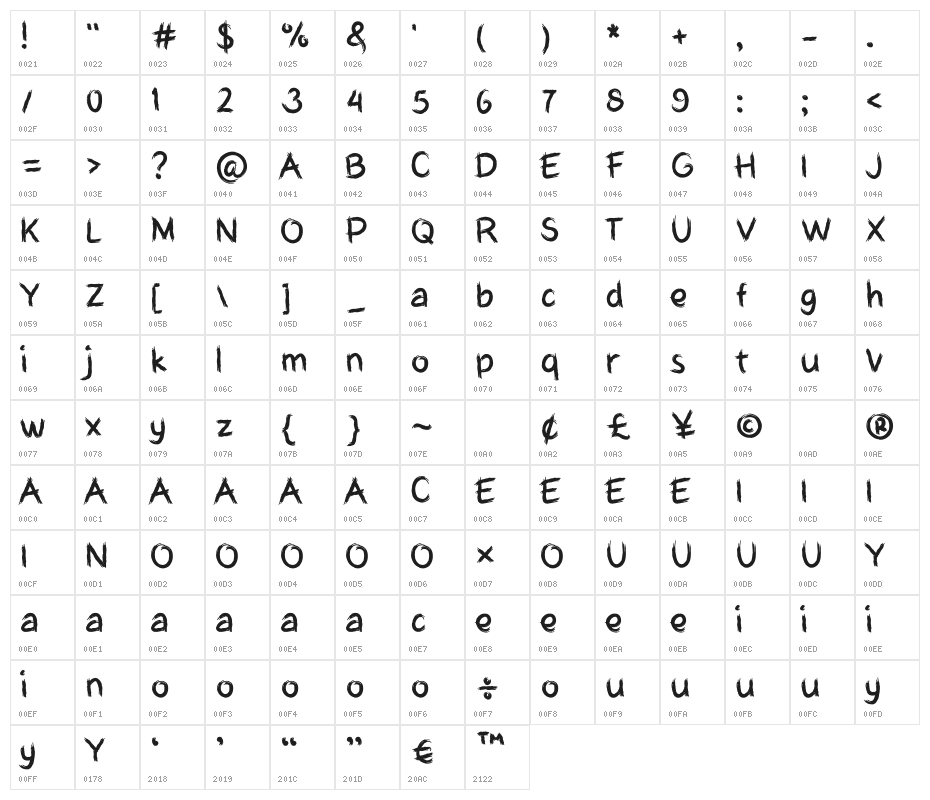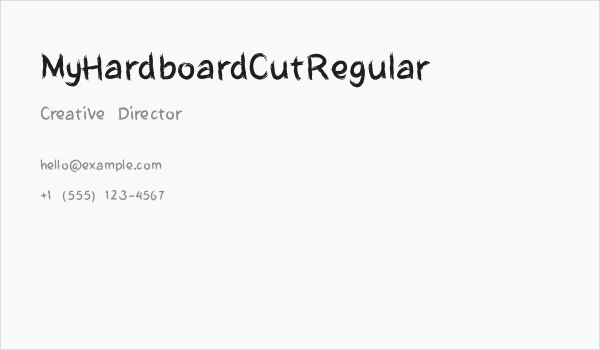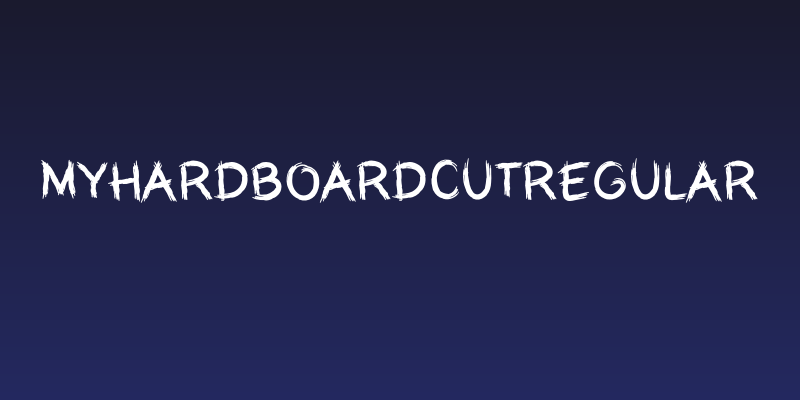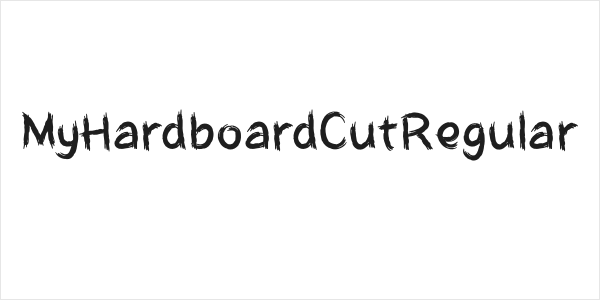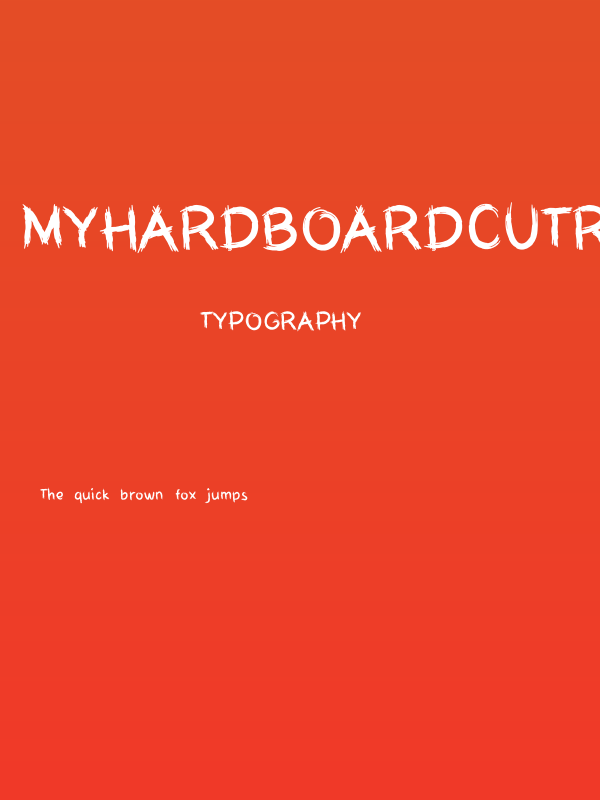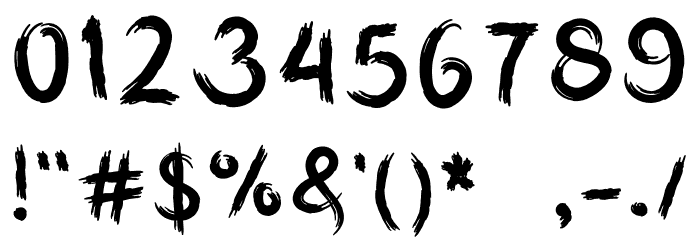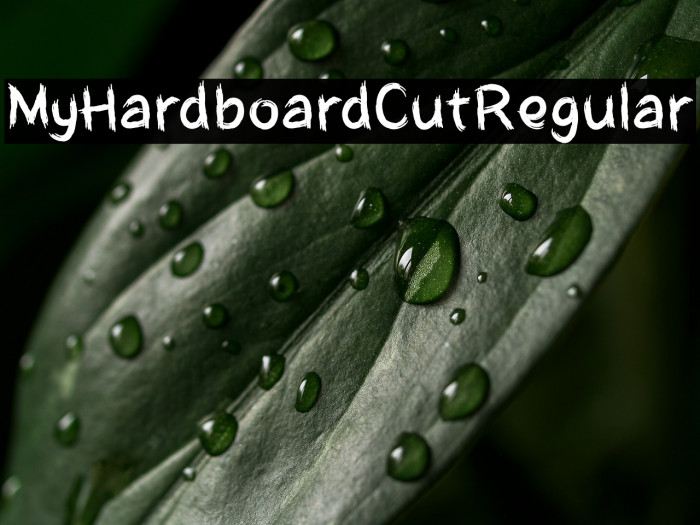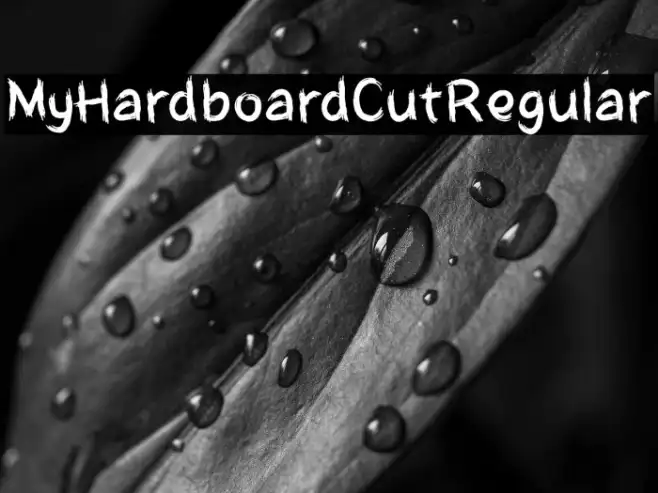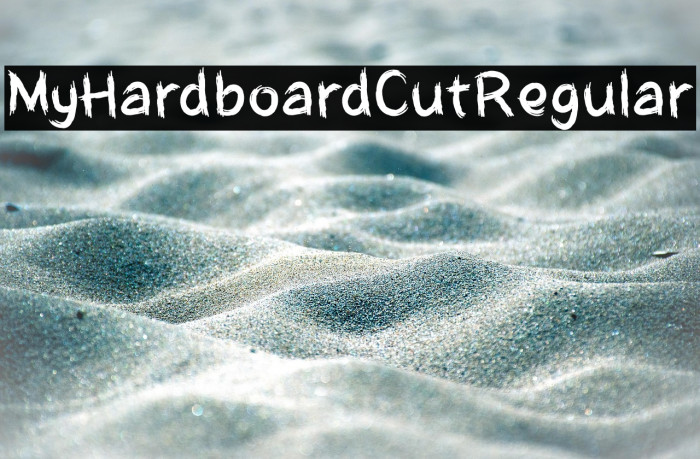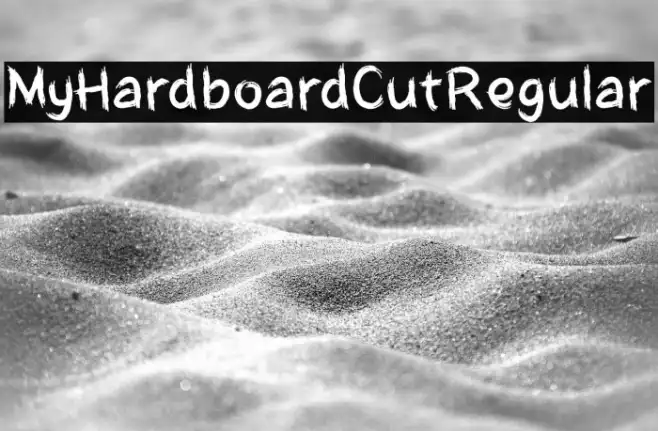
MyHardboardCutRegular Font
MyHardboardCutRegular Description
This font features a bold and expressive style, reminiscent of brush strokes or hand-painted letters. Each character is uniquely crafted with irregular edges and varying thickness, giving it a dynamic and energetic appearance. The uppercase and lowercase letters maintain a consistent aesthetic, with a slightly rough texture that adds to its handcrafted feel. Numbers and special characters follow the same design principles, ensuring a cohesive look across all elements. The font's artistic flair makes it suitable for projects that require a strong visual impact.